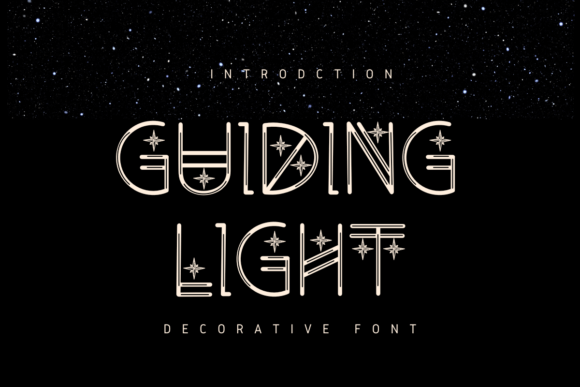
Guiding Light Font: A Celestial-Inspired Decorative Font
Are you looking for a font that adds a touch of magic and sophistication to your designs? Look no further than the Guiding Light Font. This celestial-inspired decorative font is perfect for dreamy branding, event invitations, holiday cards, and any design that calls for a sense of wonder and elegance.
What is Guiding Light Font?
Guiding Light Font is a decorative font that is inspired by the beauty of the cosmos. With its starburst accents and linear detailing, each character radiates a unique sense of wonder and magic. The font is designed to evoke a sense of celestial charm, making it perfect for designs that require a touch of elegance and sophistication.
Key Features of Guiding Light Font
- Celestial-Inspired Design: The font is inspired by the beauty of the cosmos, with starburst accents and linear detailing that give it a unique and magical look.
- Elegant and Sophisticated: The font has an elegant and sophisticated look that makes it perfect for designs that require a touch of luxury and refinement.
- Dreamy and Whimsical: The font has a dreamy and whimsical quality that makes it perfect for designs that require a sense of wonder and magic.
- Perfect for Branding and Marketing: The font is perfect for branding and marketing designs that require a touch of elegance and sophistication.
Uses of Guiding Light Font
Guiding Light Font is a versatile font that can be used in a variety of designs, including:
- Dreamy Branding: The font is perfect for branding designs that require a touch of elegance and sophistication.
- Event Invitations: The font is perfect for event invitations that require a sense of wonder and magic.
- Holiday Cards: The font is perfect for holiday cards that require a touch of elegance and sophistication.
- Packaging Design: The font is perfect for packaging designs that require a touch of luxury and refinement.
Benefits of Using Guiding Light Font
Using Guiding Light Font in your designs has several benefits, including:
- Unique and Eye-Catching: The font has a unique and eye-catching design that will make your designs stand out.
- Elegant and Sophisticated: The font has an elegant and sophisticated look that will add a touch of luxury and refinement to your designs.
- Versatile: The font is versatile and can be used in a variety of designs, from branding and marketing to packaging and event invitations.
Tips for Using Guiding Light Font
Here are some tips for using Guiding Light Font in your designs:
- Use it Sparingly: Use the font sparingly to add a touch of elegance and sophistication to your designs.
- Pair it with Other Fonts: Pair the font with other fonts to create a unique and eye-catching design.
- Experiment with Colors: Experiment with different colors to find the perfect combination that works with the font.
Guiding Light Font is a celestial-inspired decorative font that shines with elegance and cosmic charm. With its starburst accents and linear detailing, each character radiates a unique sense of wonder and magic. The font is perfect for dreamy branding, event invitations, holiday cards, and any design that calls for a touch of magic and sophistication.
- What is Guiding Light Font?: Guiding Light Font is a celestial-inspired decorative font that shines with elegance and cosmic charm.
- What are the key features of Guiding Light Font?: The font has a celestial-inspired design, elegant and sophisticated look, dreamy and whimsical quality, and is perfect for branding and marketing designs.
- What are the uses of Guiding Light Font?: The font is perfect for dreamy branding, event invitations, holiday cards, packaging design, and other designs that require a touch of elegance and sophistication.